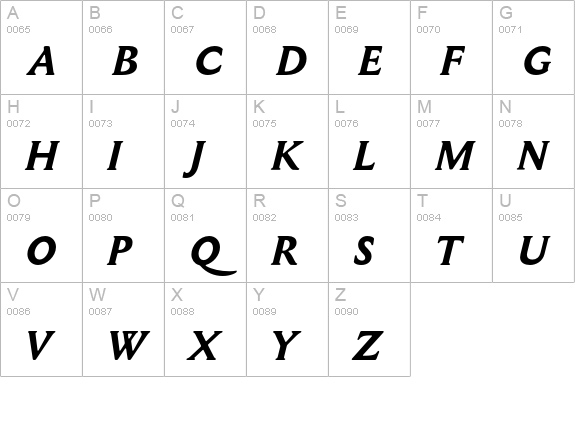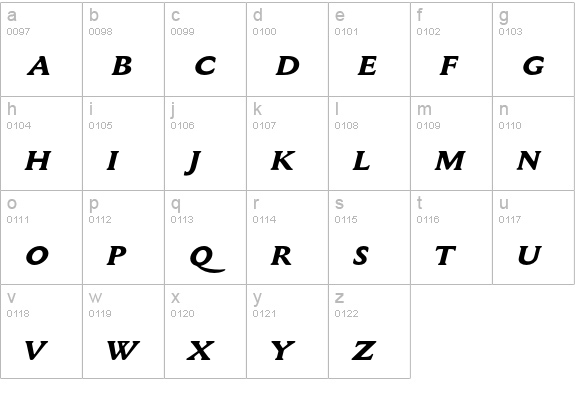
MediaevalSCOSF-BoldItalic Font Details
MediaevalSCOSF-BoldItalic is a striking and elegant font that embodies the essence of medieval calligraphy with a modern twist. Its bold and italic design exudes a sense of strength and sophistication, making it perfect for adding a touch of historical charm to your projects. This font is not only visually appealing but also versatile, suitable for a wide range of design purposes such as branding, packaging, headlines, and more. Its timeless aesthetic will surely make your text stand out and leave a lasting impression on your audience. And the best part? MediaevalSCOSF-BoldItalic is available for free download at FontsMarket.com. Embrace the beauty and elegance of this unique font in your creative endeavors today!